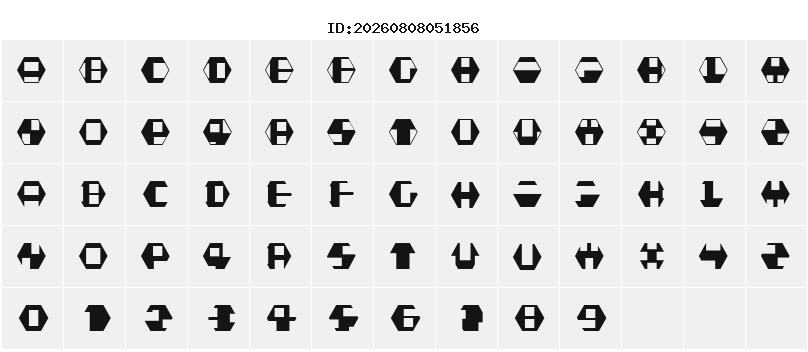
• Font Name: Prime v2
• Description: Prime v2 Regular is a font by PYRS Fontlab Ltd. / Made with FontLab, designed in 2012.
About Prime v2.ttf
Prime v2.ttf is a modern, elegant sans-serif font designed for ultimate readability and visual harmony. Perfect for branding, headlines, web design, and print materials.